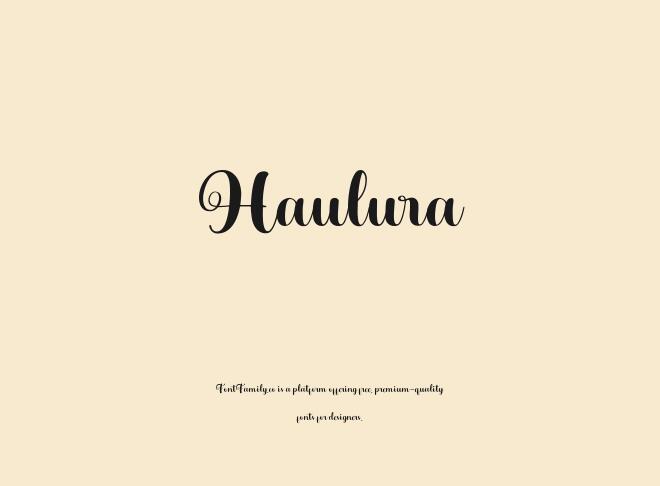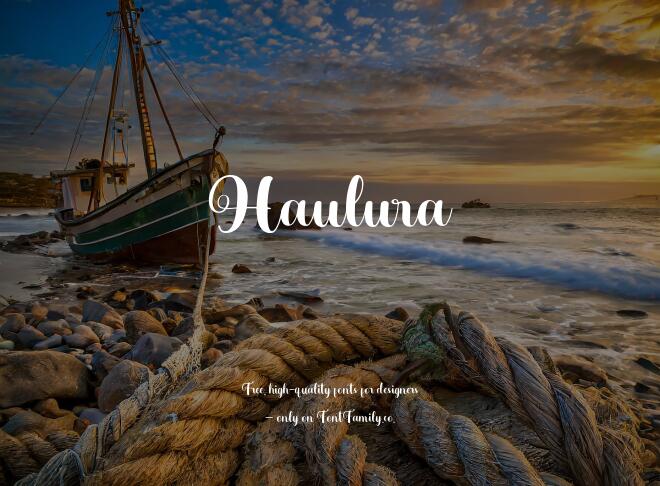
Haulura Font
Haulura Font is a modern and elegant script typeface designed by Creative Fabrica. The font features a unique blend of sophistication and style, making it perfect for a variety of design projects. It showcases a delicate balance of traditional handwritten script with a contemporary twist, offering a versatile aesthetic that can adapt to any context. The Haulura Font is a great choice for branding, wedding invitations, product packaging, and more. It can be paired with a wide range of other fonts for a striking contrast, enhancing the overall design. Its clean lines and smooth curves make it a must-have for designers who want to bring a touch of elegance and modernity to their work. The Haulura Font is not just a typeface; it's a design tool that can help you create compelling and impactful designs.